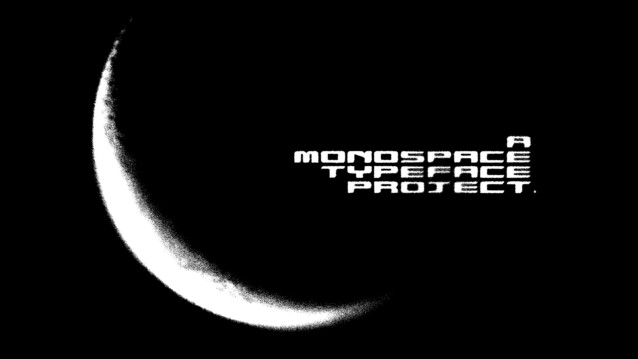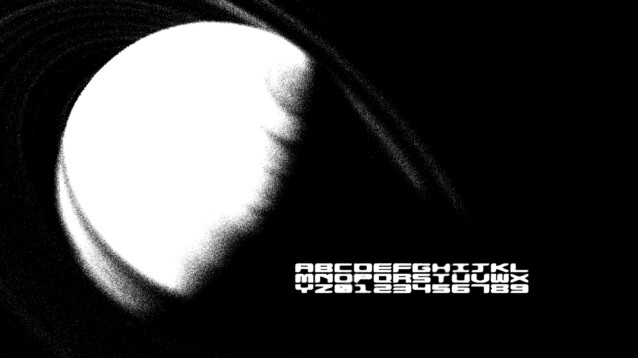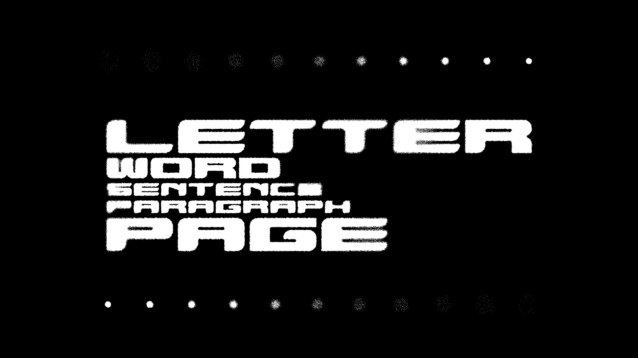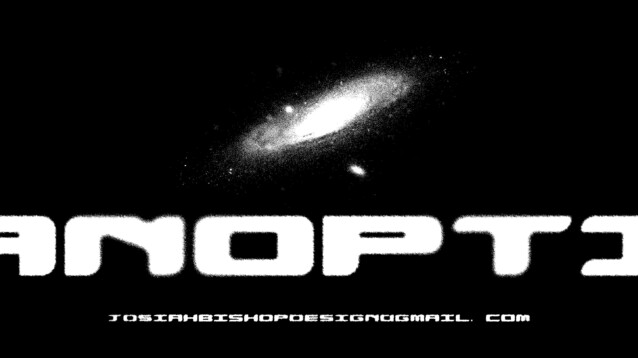
Panoptic Monospace Font is a geometric futuristic display typeface. 100% free.
WHAT: Panoptic Monospace is a futuristic typeface designed from squares and circles.
RESPONSIBILITIES: Conceptualized and created a working typeface with over 60 unique glyphs. Designed graphics displaying how the typeface can be used.